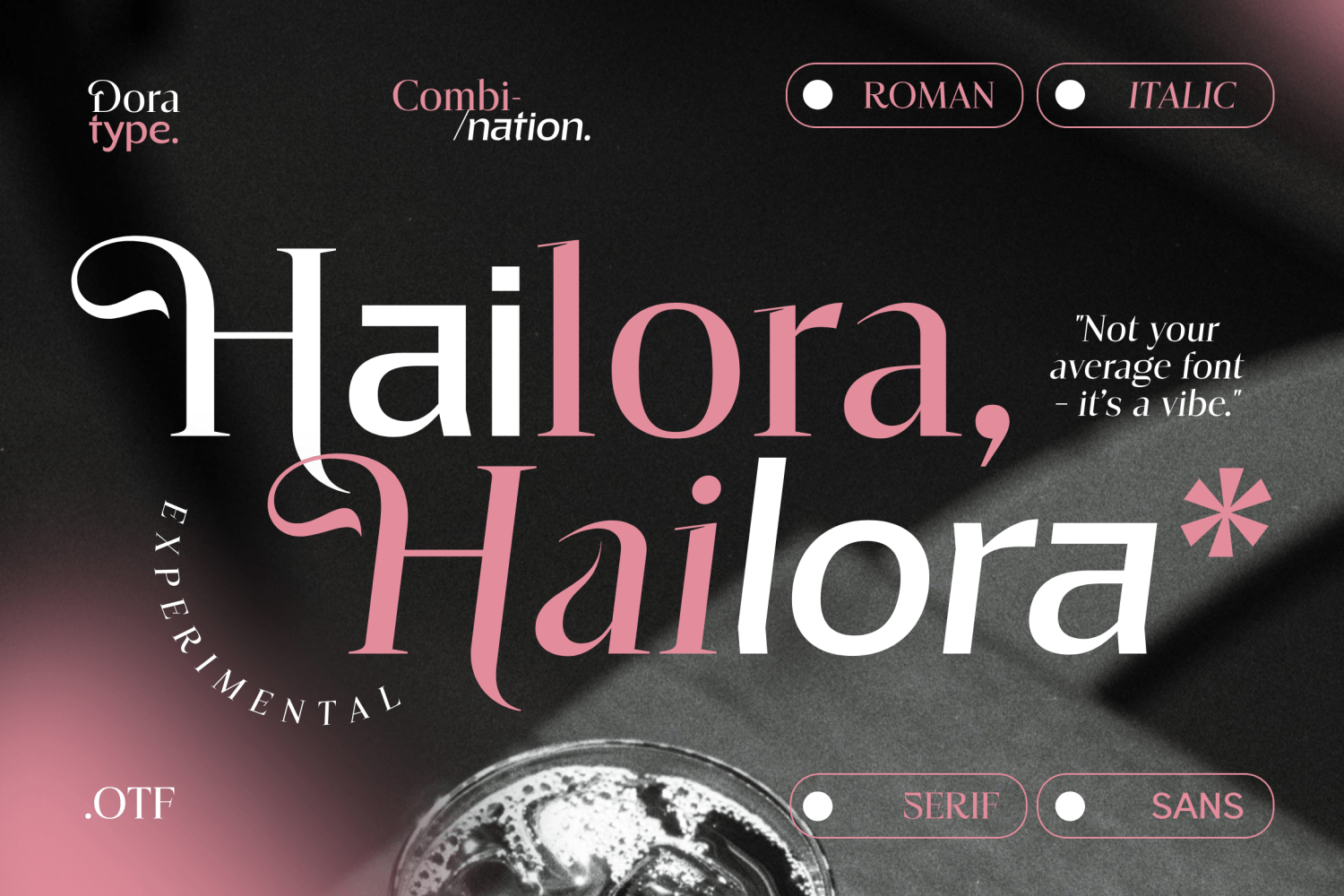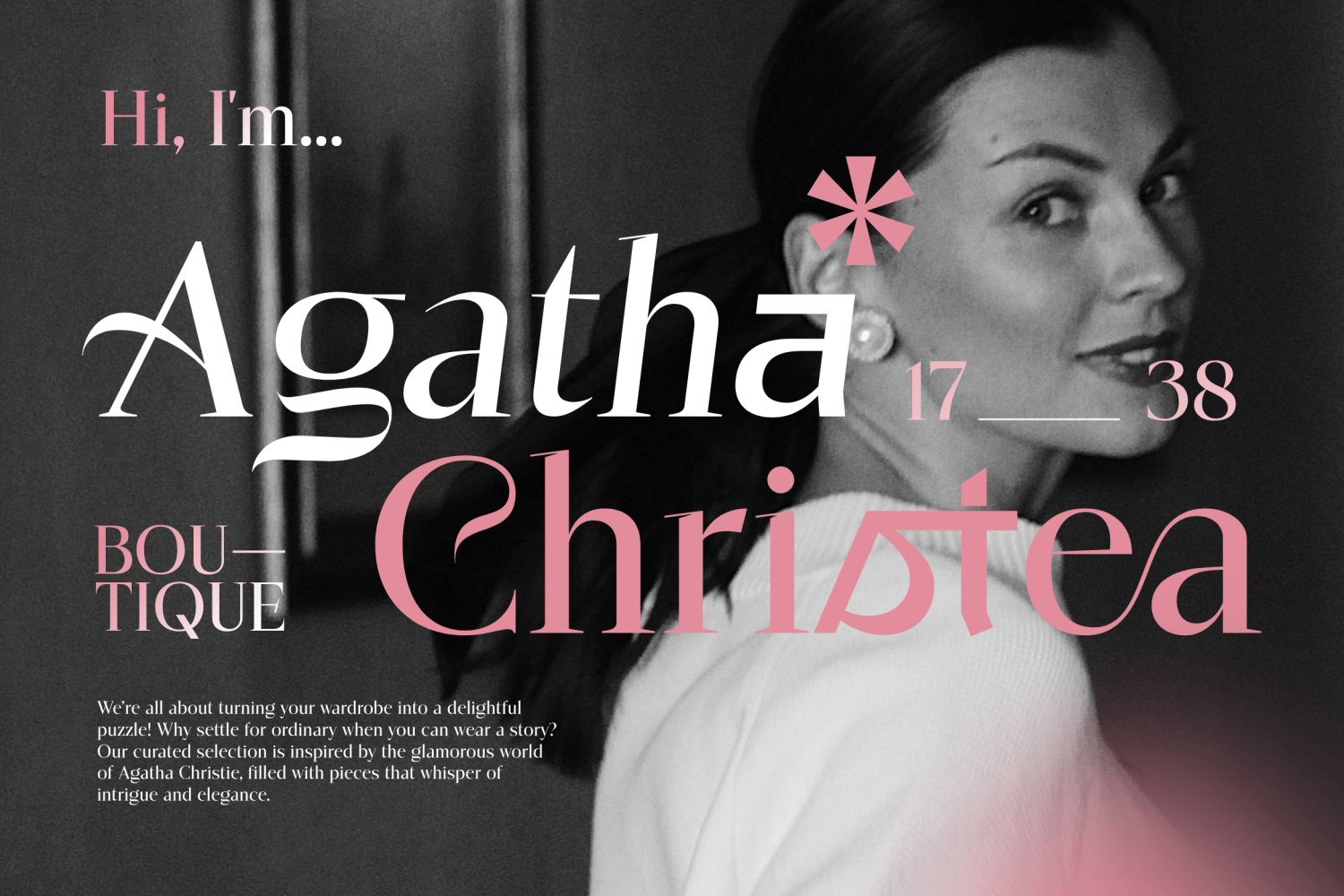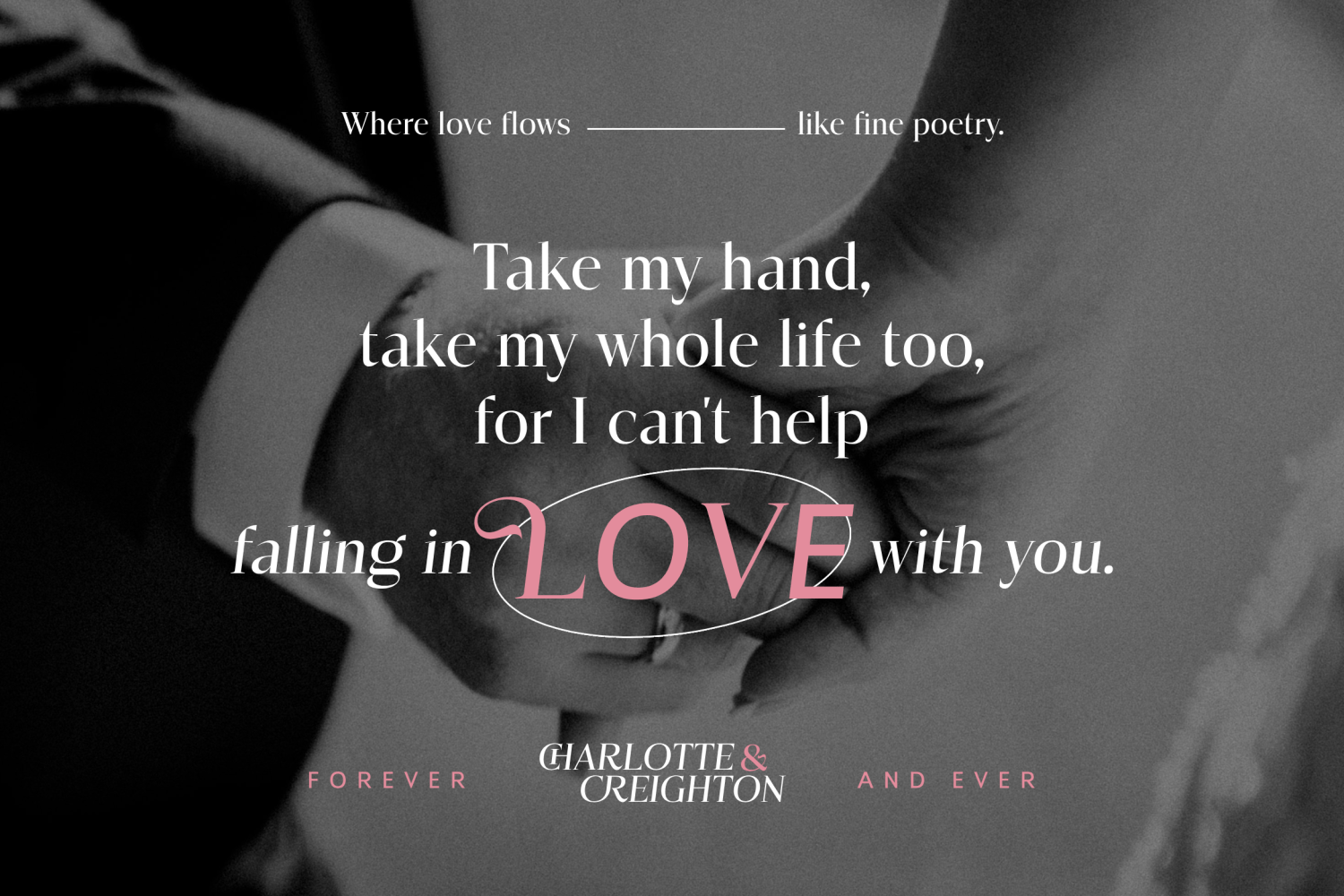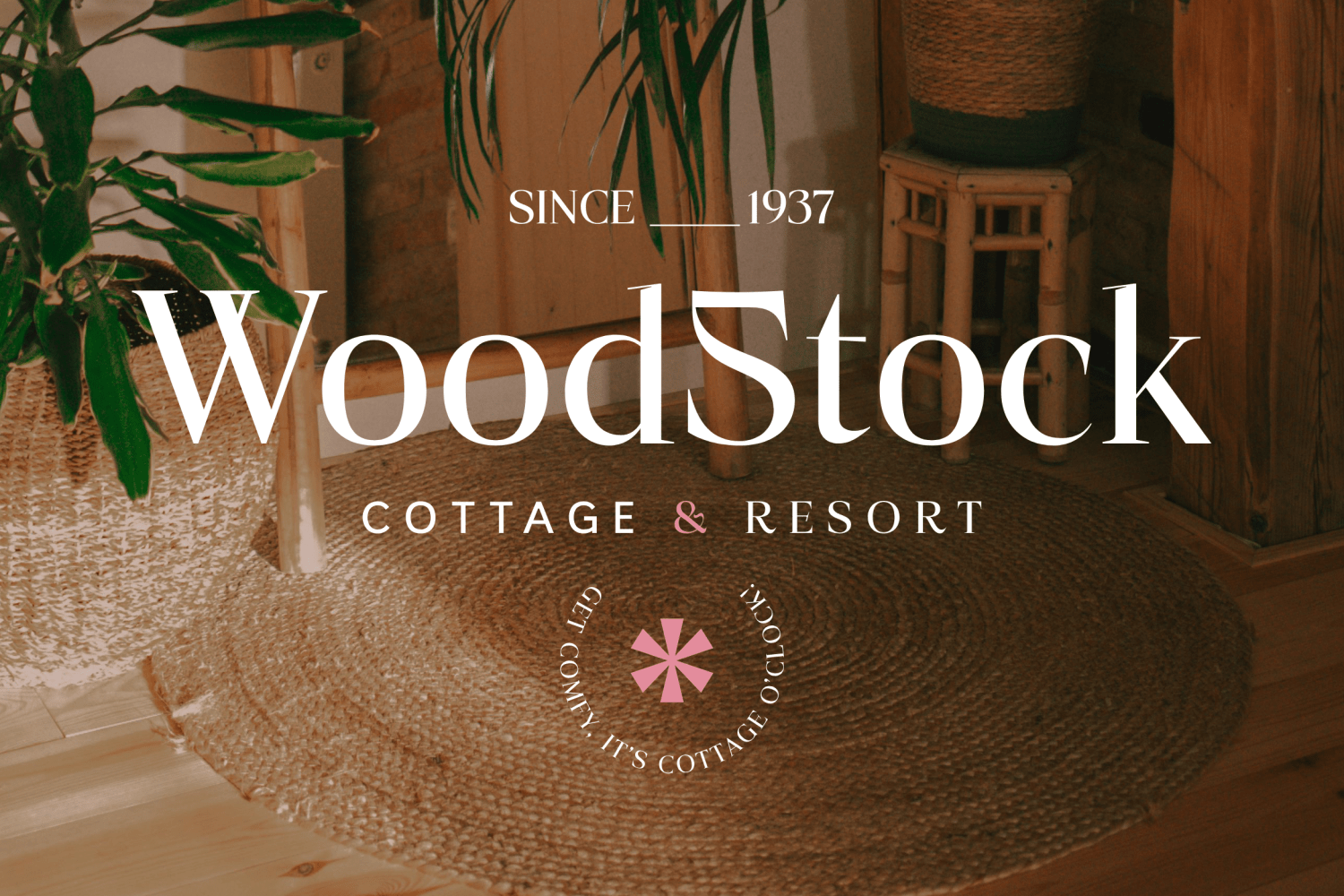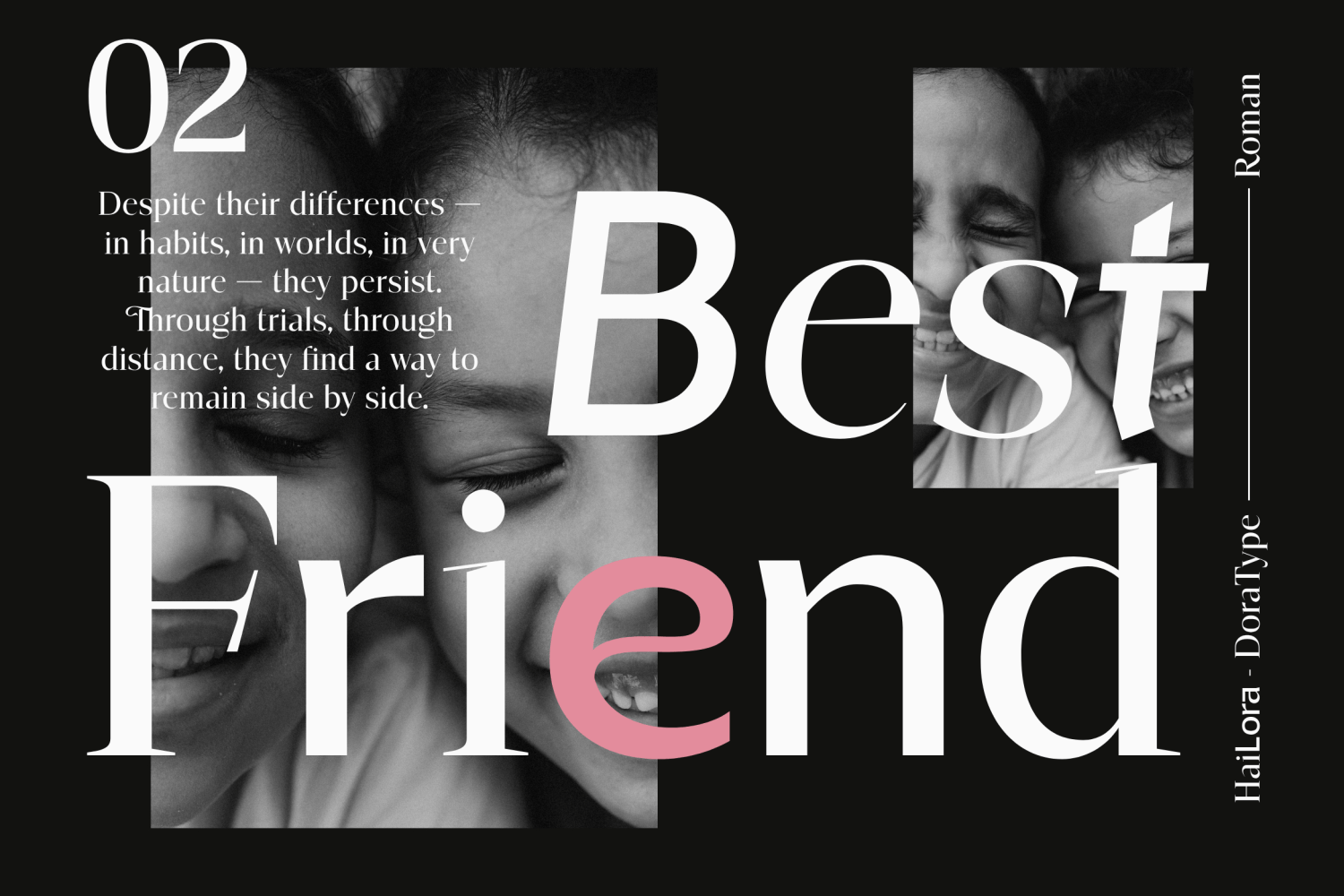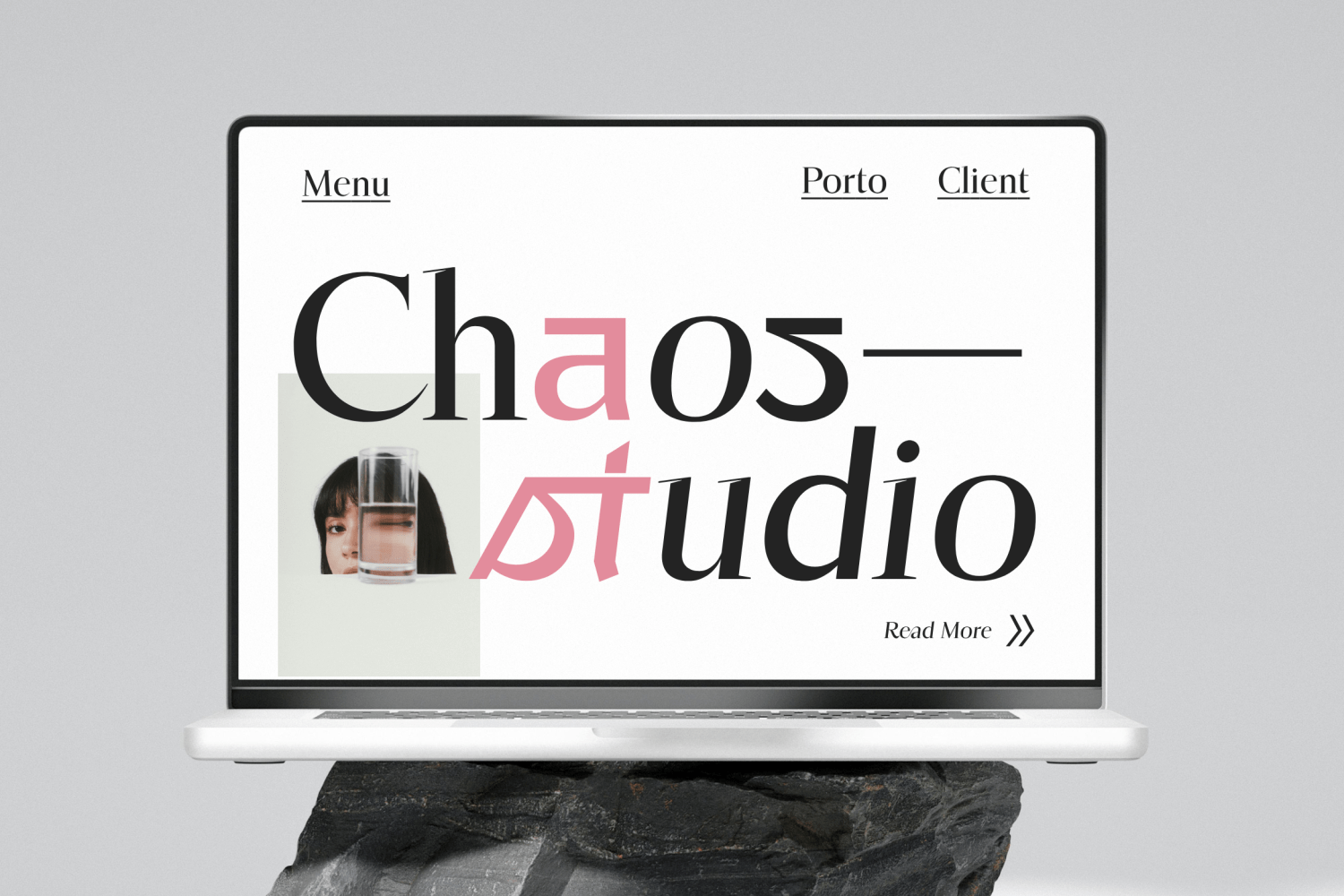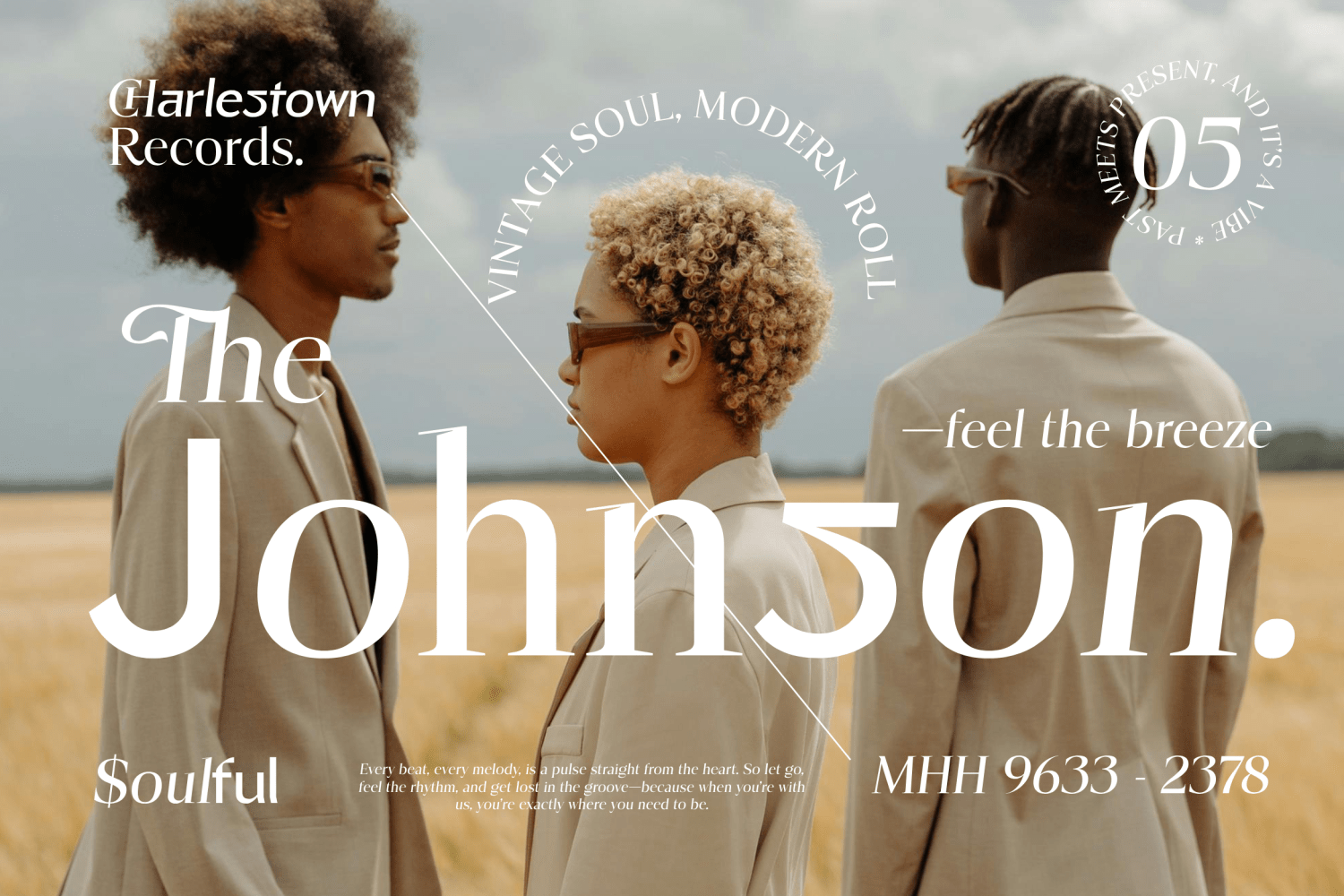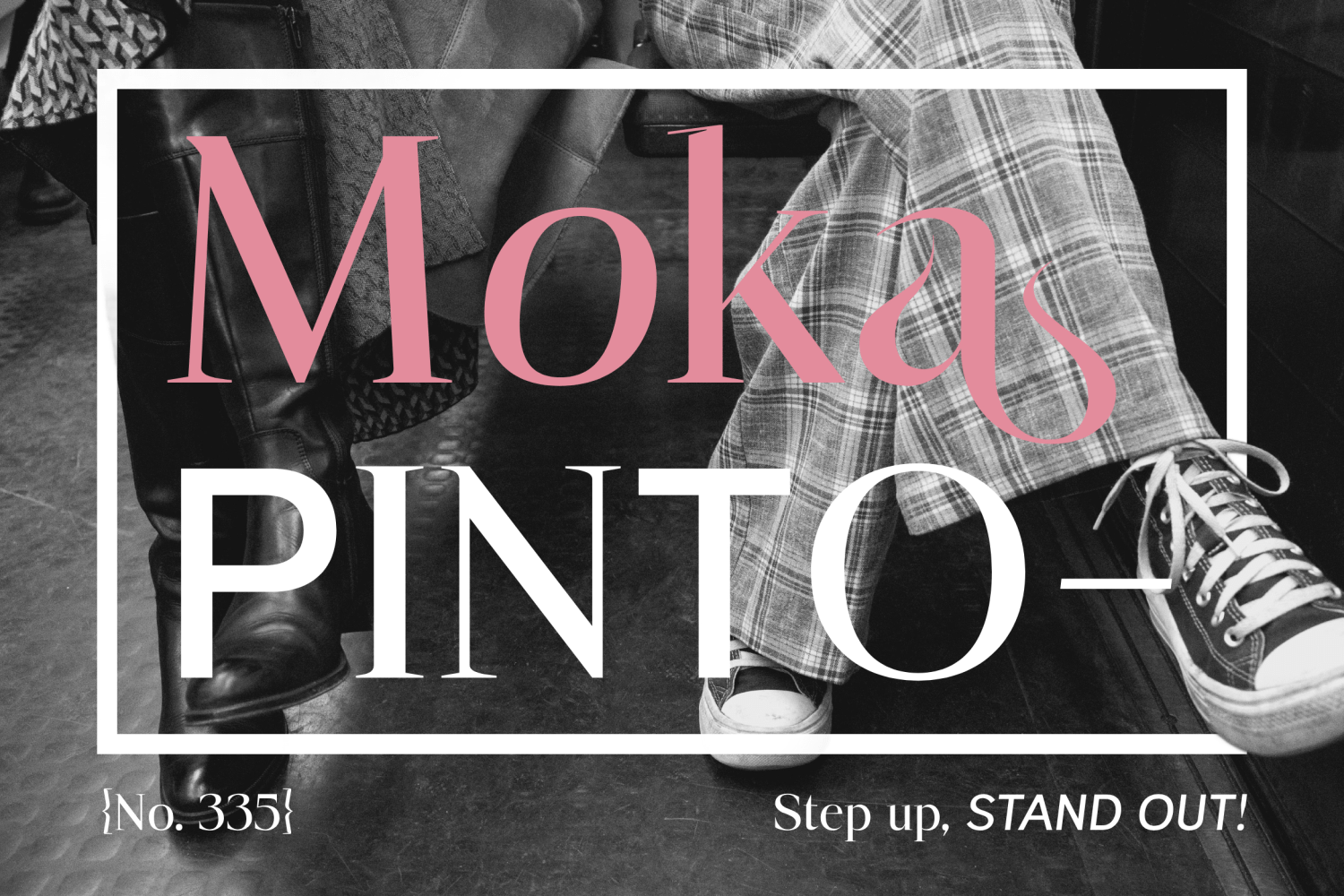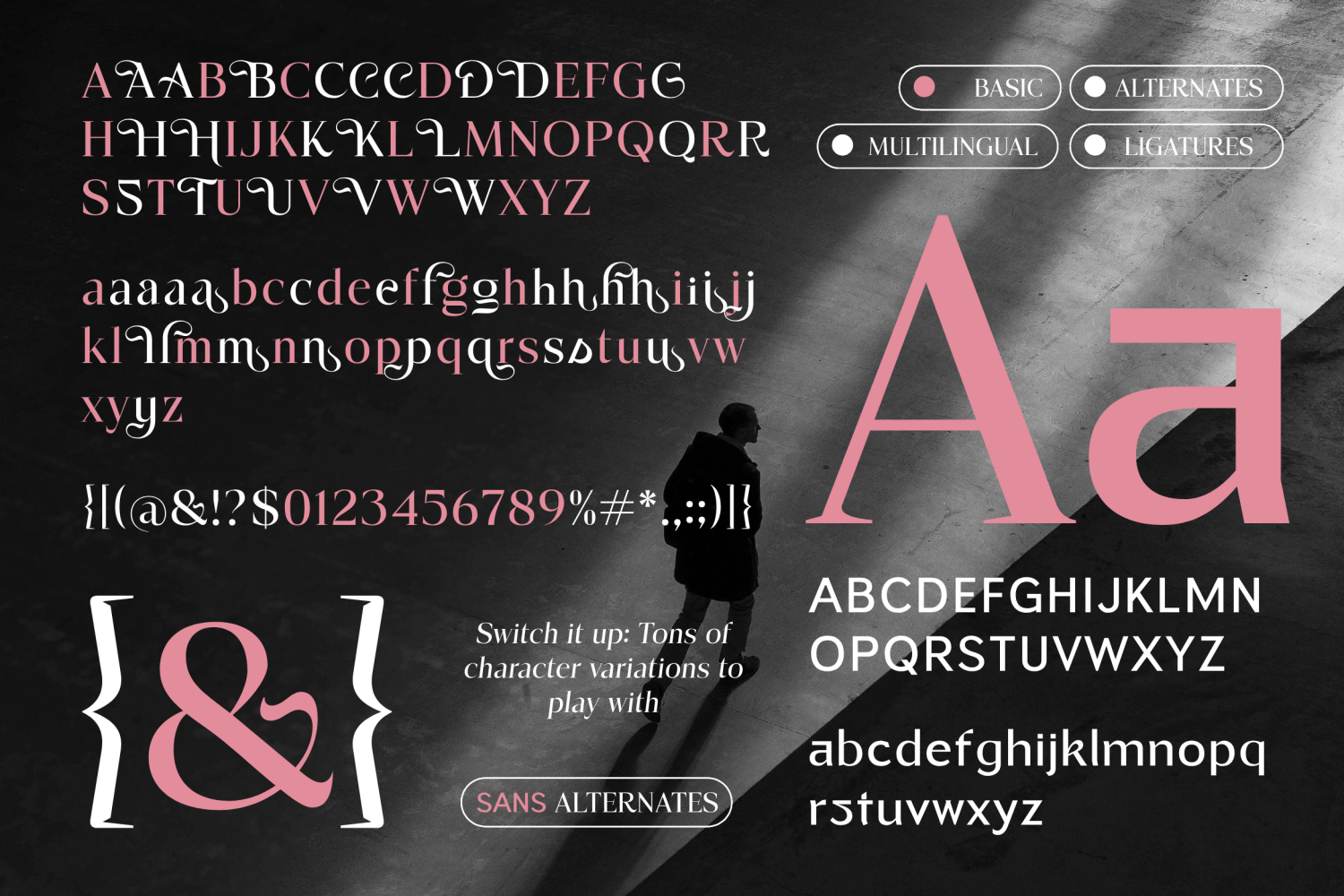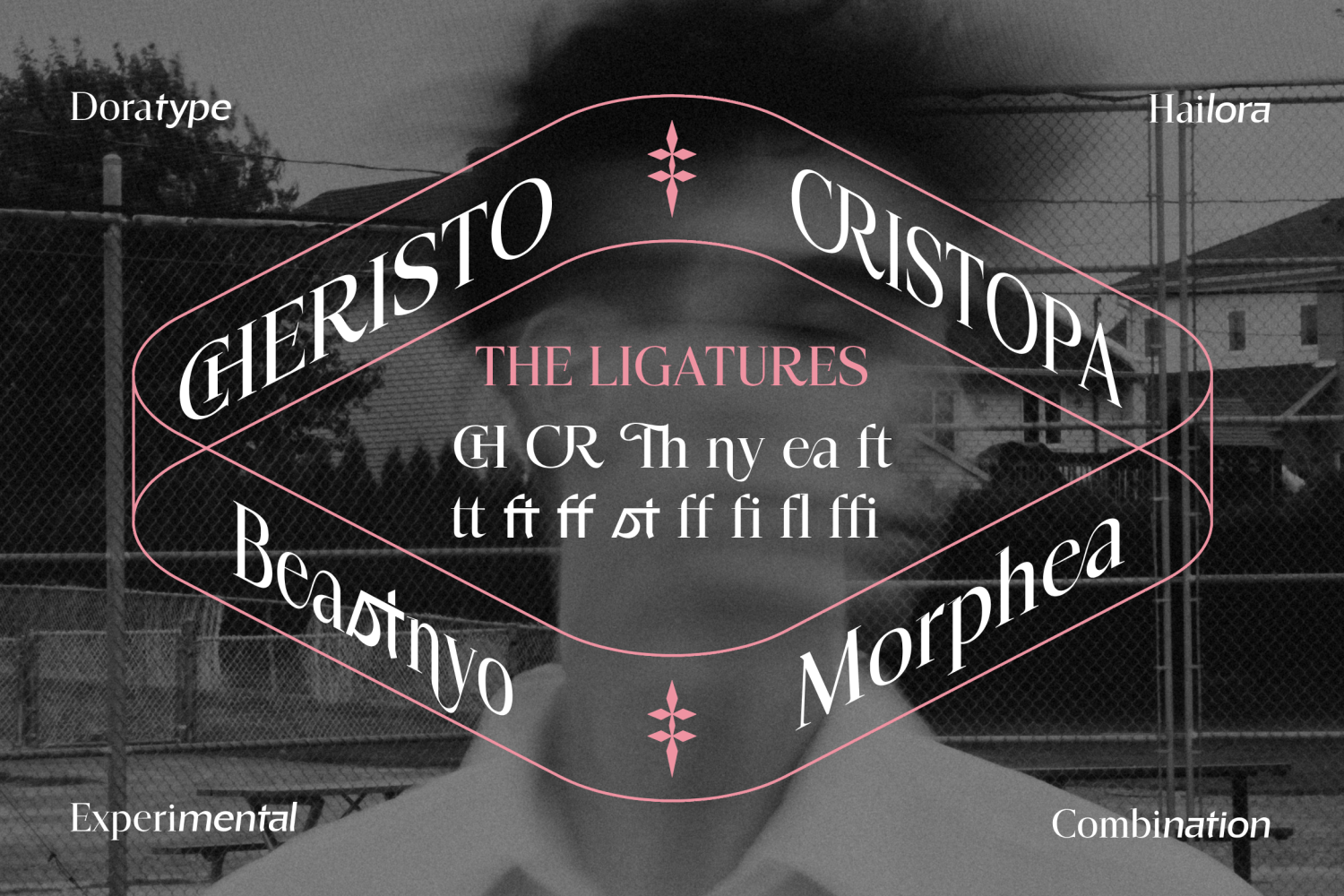
Hailora
Font Family by Dora Typefoundry
Introducing Hailora is an entirely new, creative & unique font duo. This combination also helps unite the two different styles of serif and sans serif wisely combined in one font where the serif makes it modern, and the alternative sans font can create your attractive and practical typography design!
- Uppercase
- Lowercase
- Numbers
- Symbols & punctuation
- Sans alternates
- Ligatures
- Multilingual support